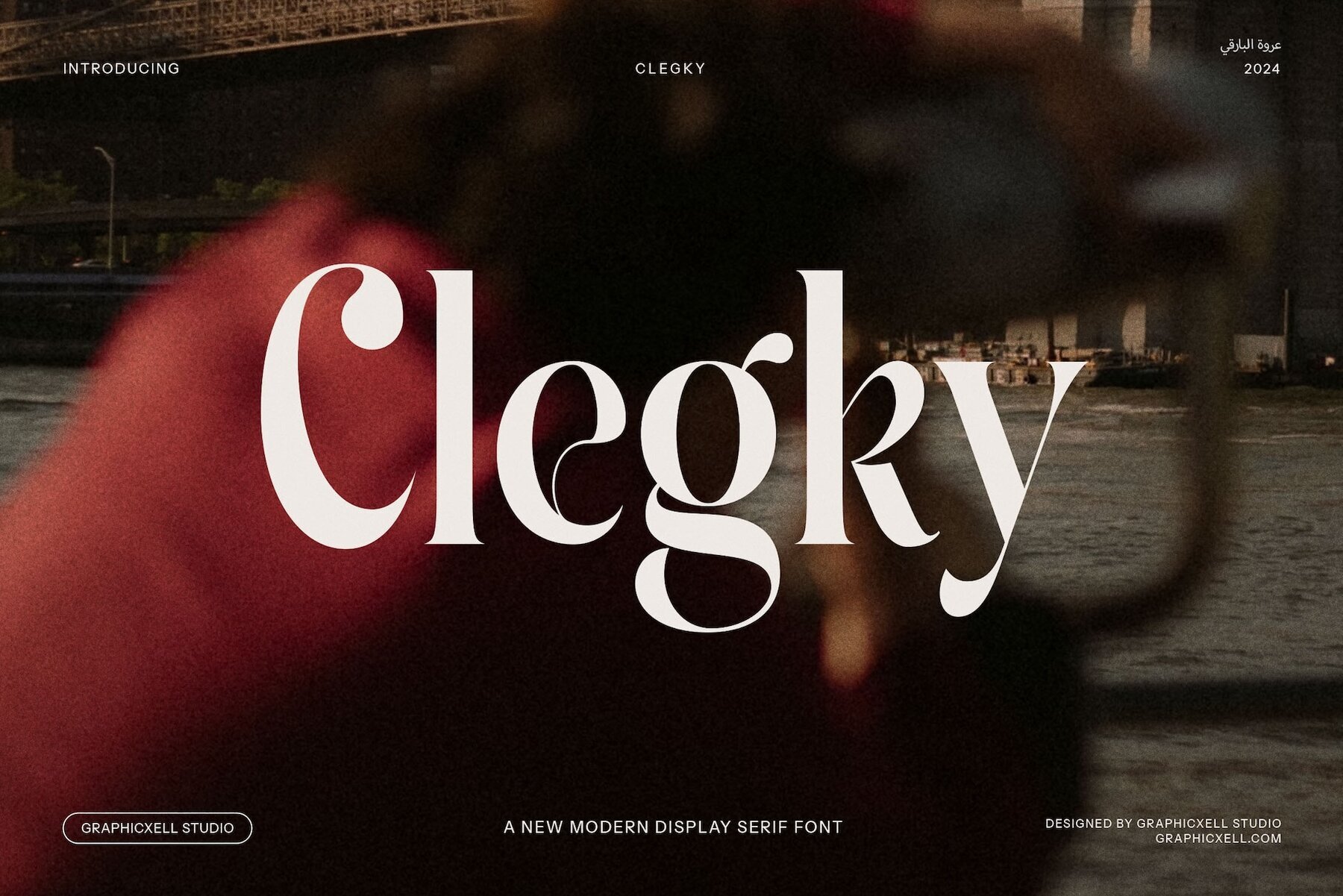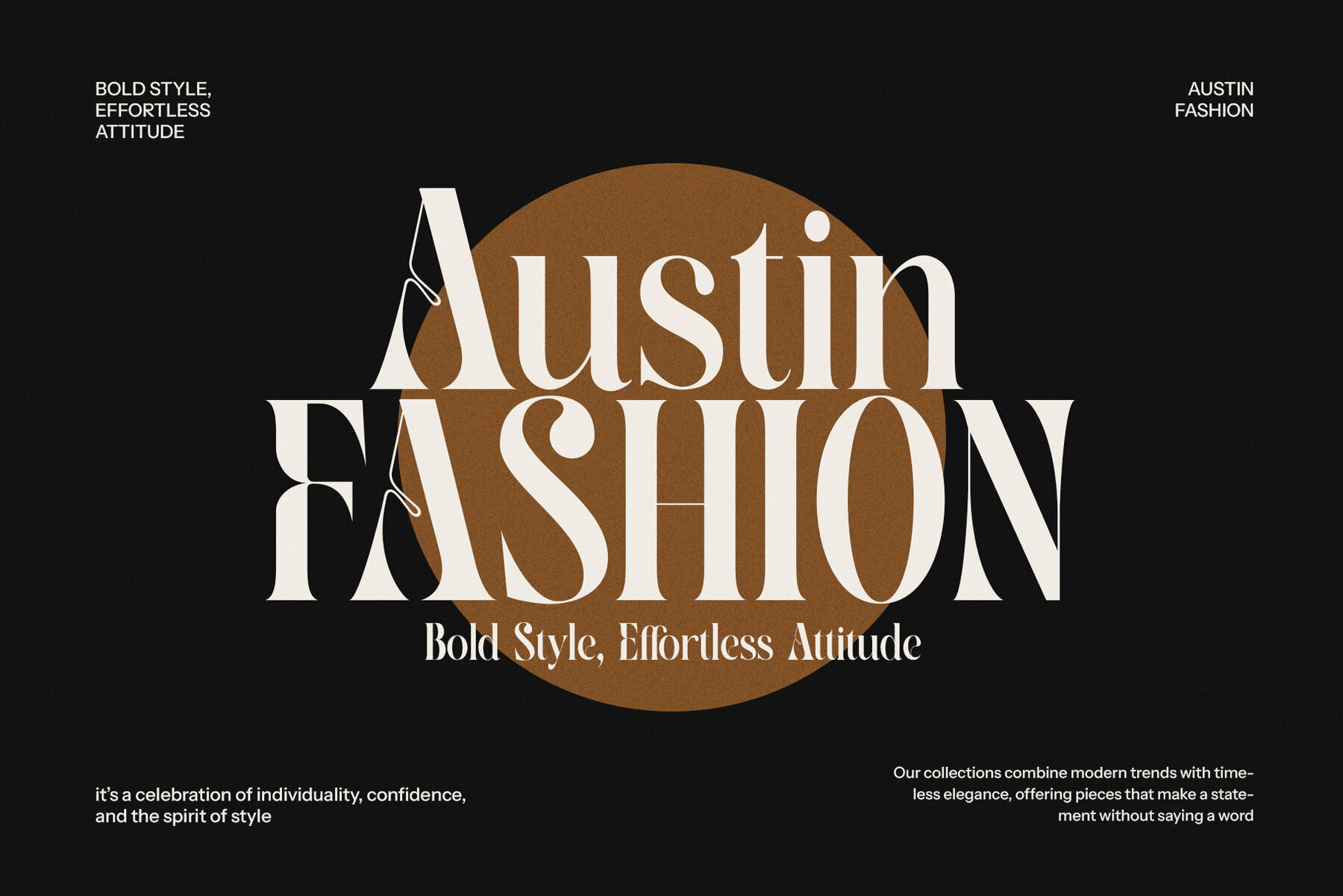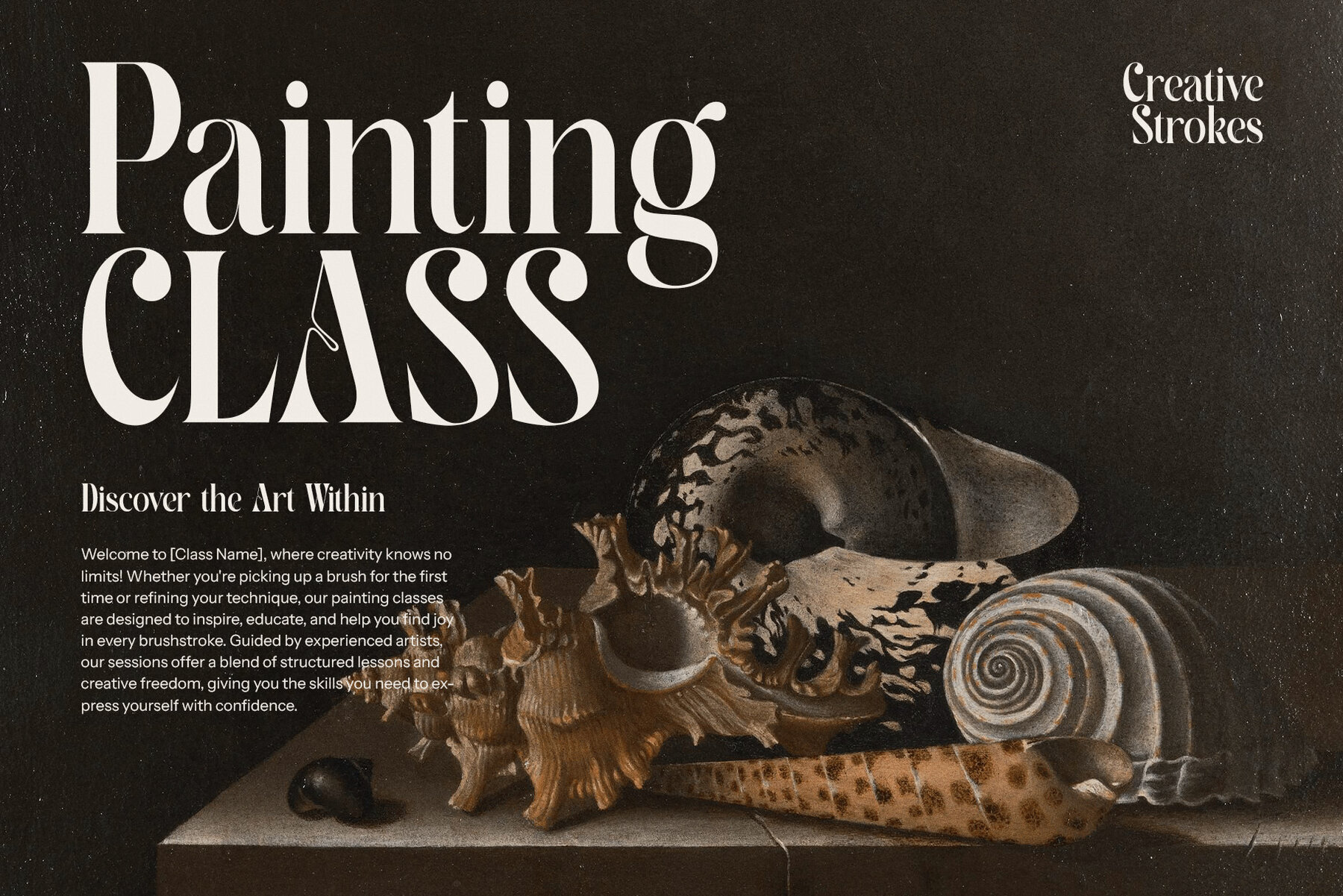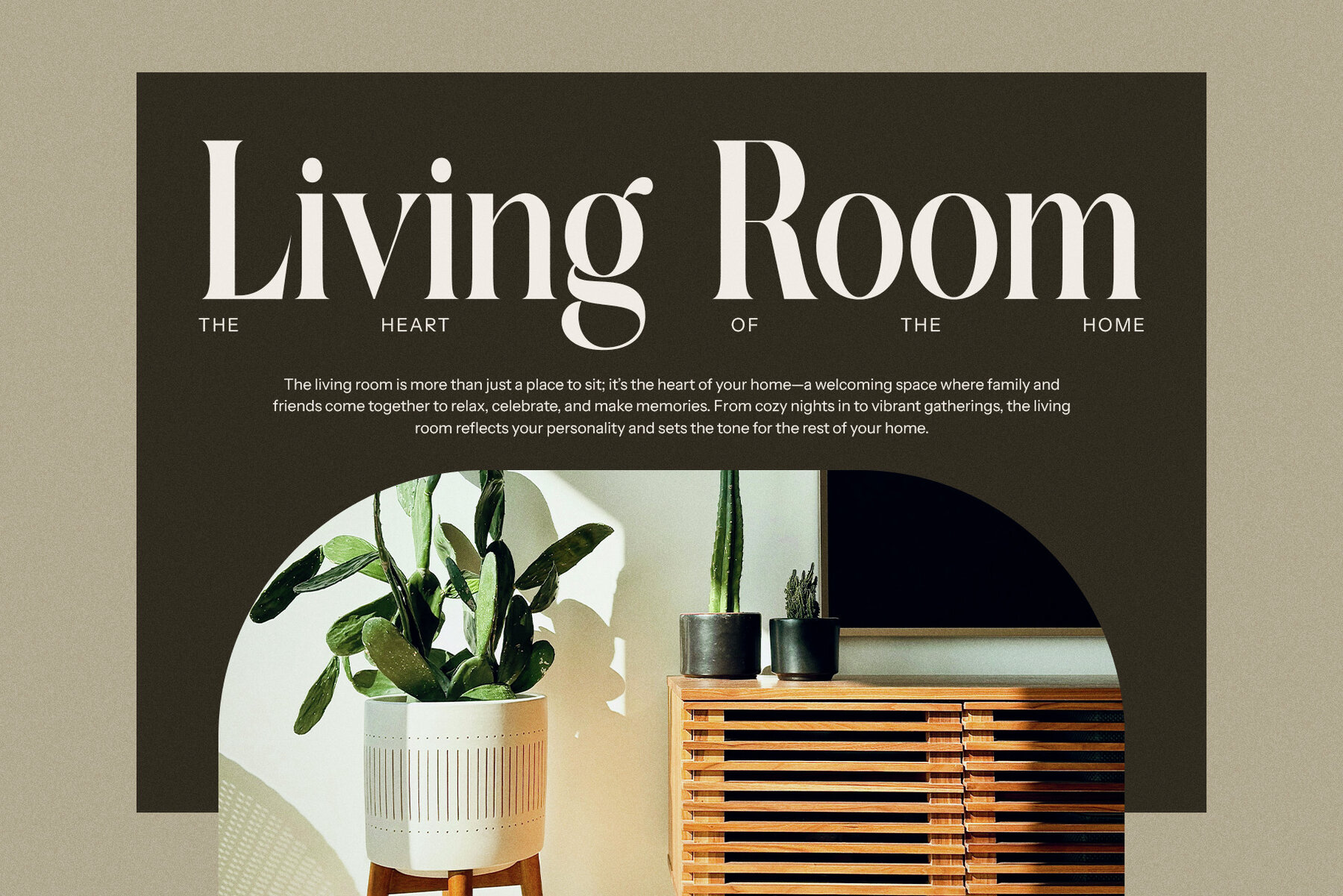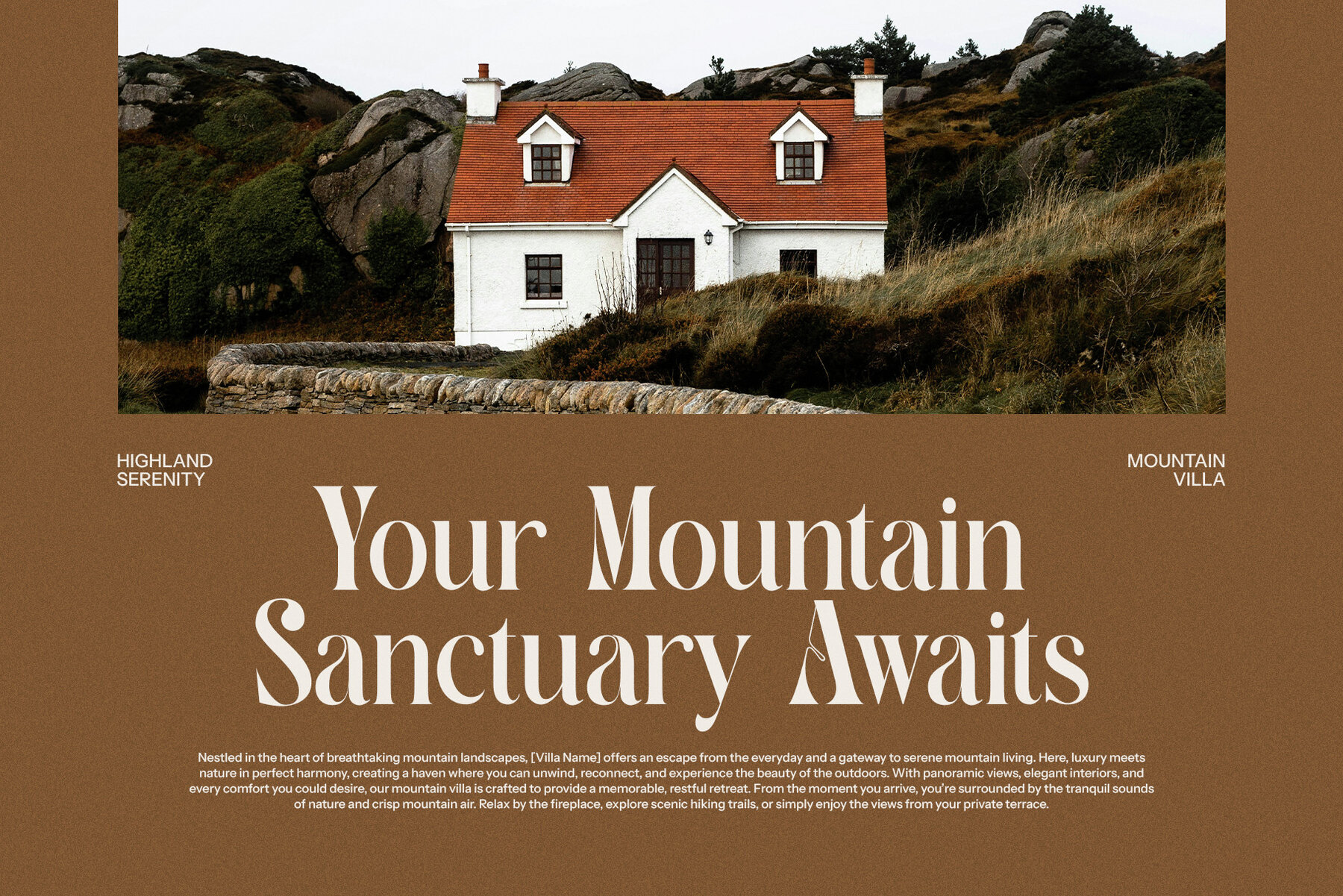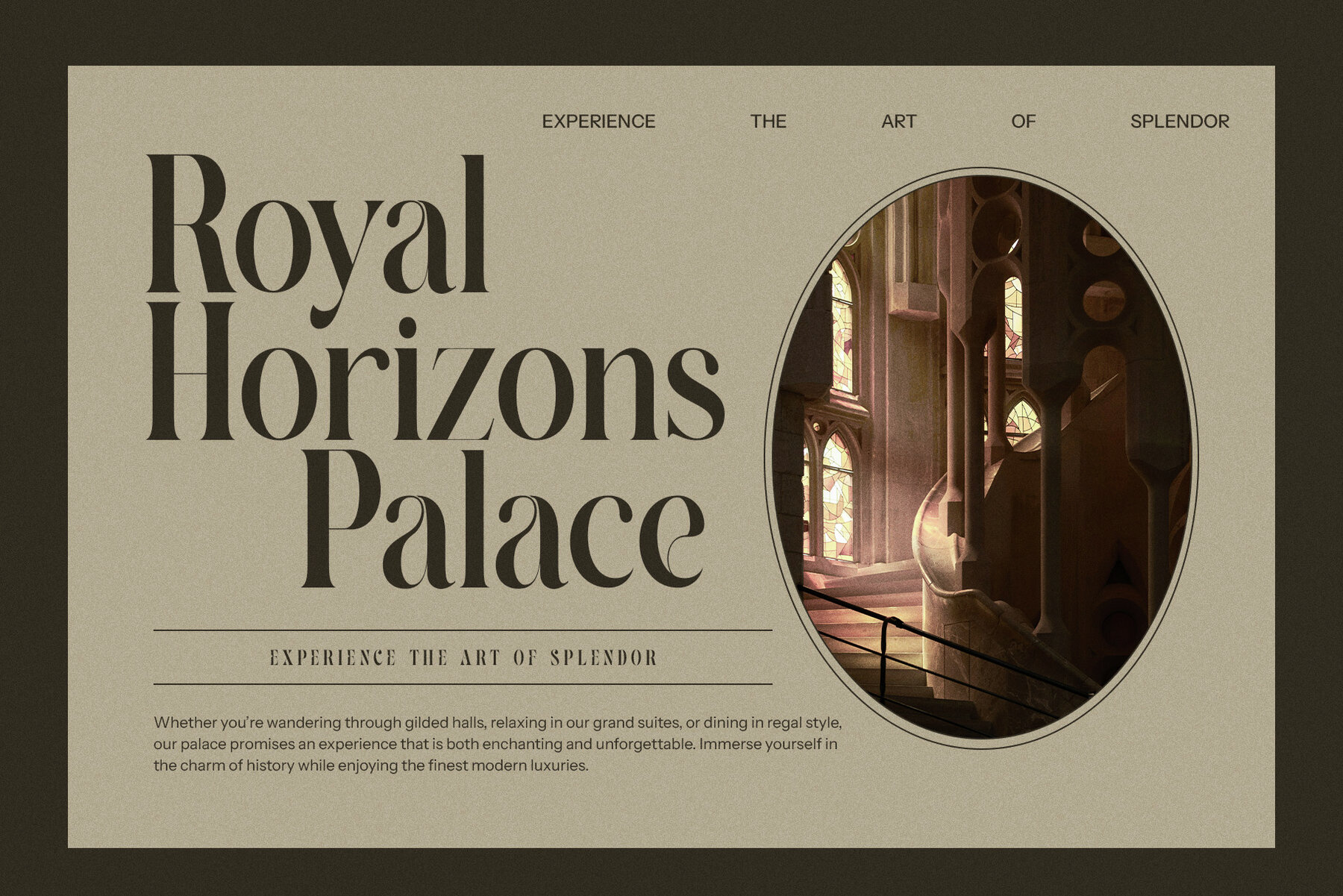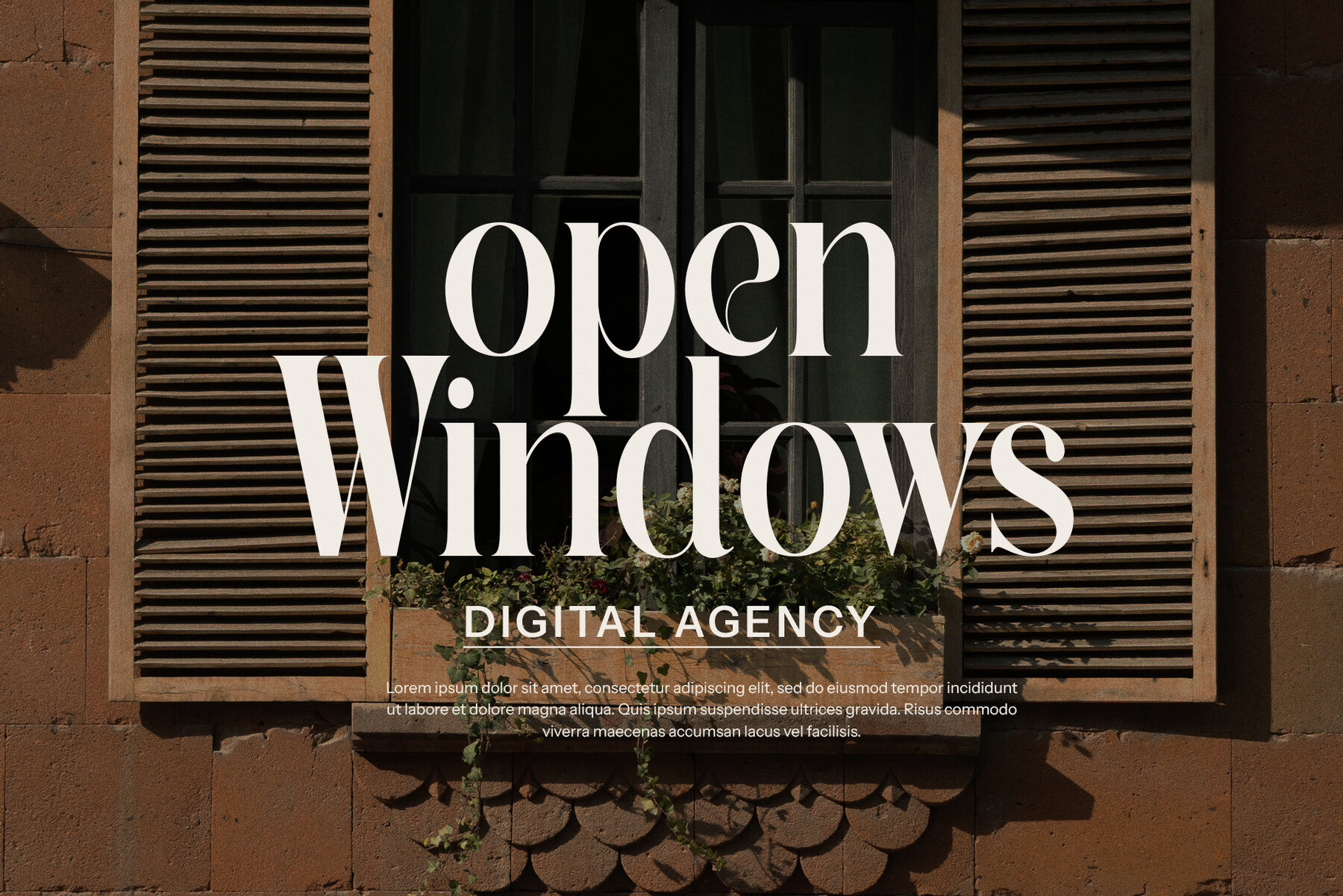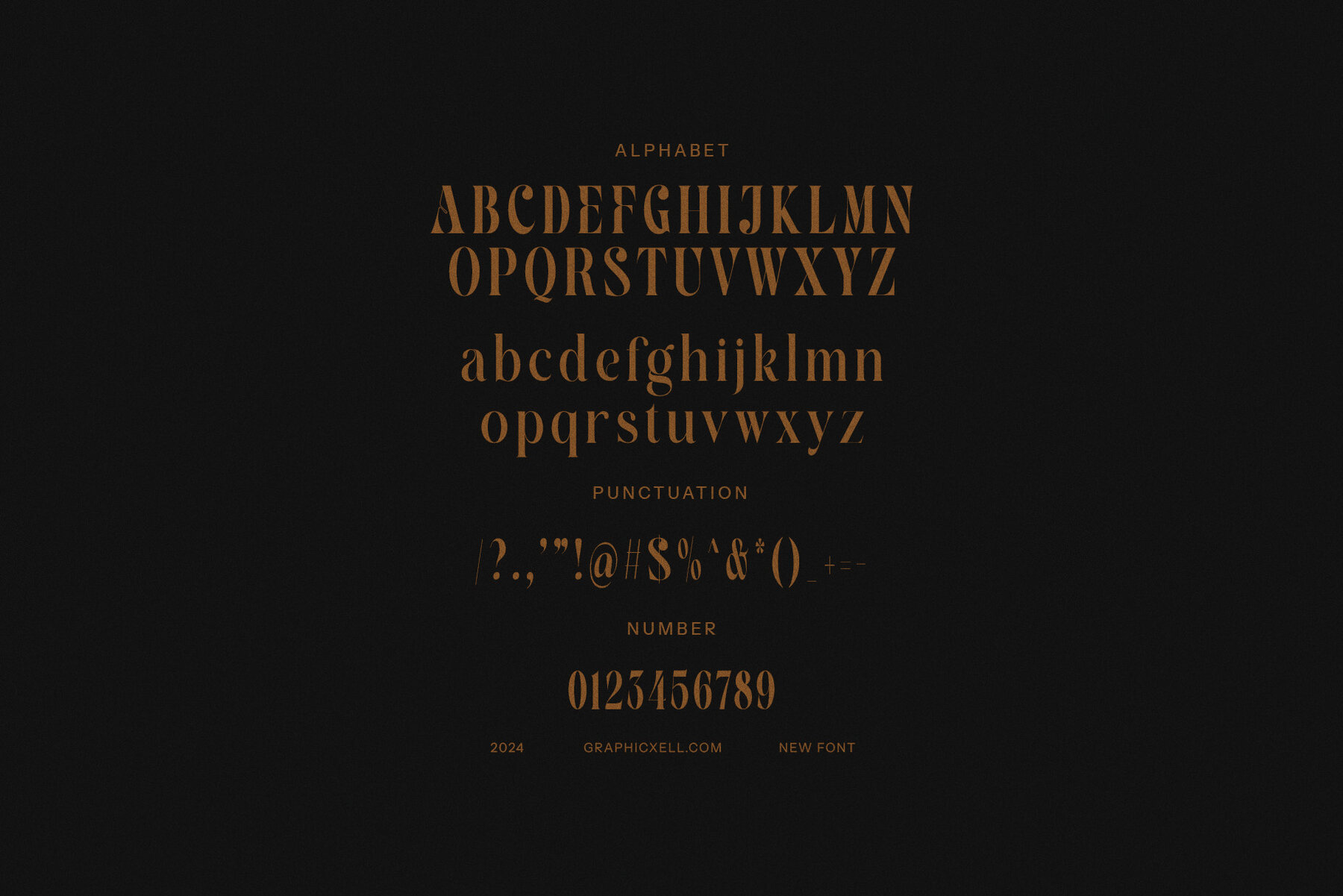
Clegky Font
Clegky
Clegky Elegant Display Serif Font is a refined typeface that merges modern design with vintage charm. Featuring distinctive serifs, graceful curves, and sophisticated proportions, it is an excellent choice for projects requiring a touch of class with a contemporary edge. Ideal for luxury brands, memorable logos, and premium product packaging, Clegky balances elegance with readability. Its timeless aesthetic is perfect for branding, websites, magazines, and advertisements, particularly for boutiques, high-end food brands, and fashion labels, ensuring your design stands out stylishly.
The versatility of Clegky is evident in its seamless performance across digital and print media. Ideal for magazine layouts, advertisements, and web typography, this font is adaptable to evoke either a vintage or contemporary feel. A top choice for a wide range of creative projects, Clegky is perfect for luxury branding, boutiques, and food and beverage products. It brings a unique sense of timeless elegance to your designs, ensuring your project captures attention with beauty and strength.